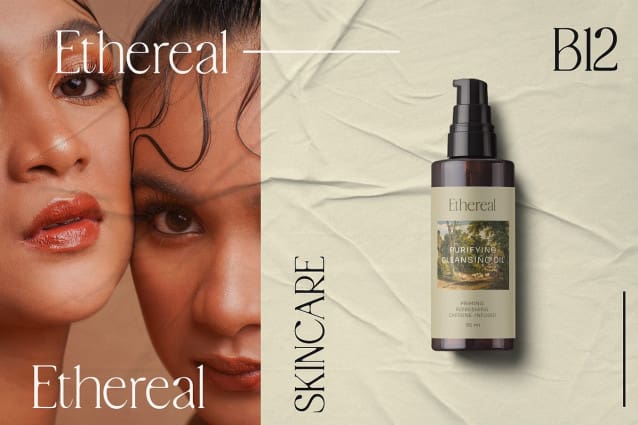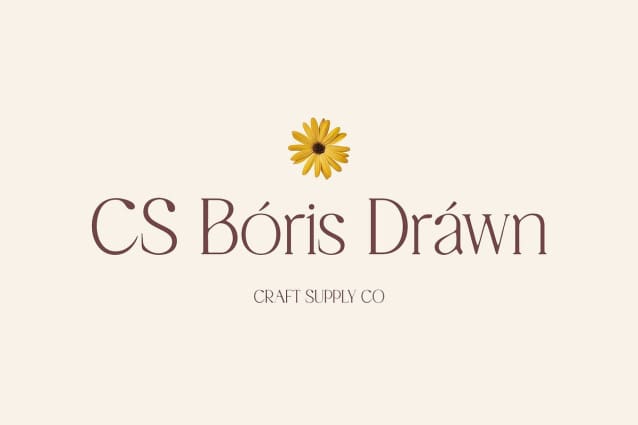
CS Boris Drawn Font
CS Boris Drawn Font is a modern serif font that seamlessly blends minimalist elegance with an artistic, hand-crafted flair. Its clean, slim serif design exudes professionalism and modern sophistication, making it a perfect choice for high-end, contemporary designs. The font’s sleek, structured lines convey a sense of clarity and precision, while the subtle hand-drawn effect adds a unique texture and charm to each letter, infusing the font with a personal, artisanal touch.
Handcrafted Texture for Added Depth What truly sets this font apart is its balance between simplicity and creative detail. The drawn effect enhances the font’s sleek form with soft, organic lines that add depth and character. Each letter carries an artisanal touch, making the font feel both refined and warm.
Ideal for Luxury and High-End Design With its refined aesthetic, this drawn font is the ideal choice for projects that demand sophistication and uniqueness. Its blend of contemporary simplicity and artistic creativity makes it perfect for luxury branding, formal invitations, and premium design materials. Whether you’re designing for a high-end product launch, an elegant event, or a prestigious brand, this font elevates your design with its professional yet creative appearance.